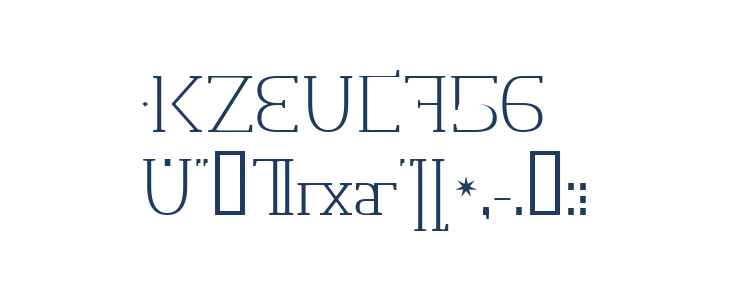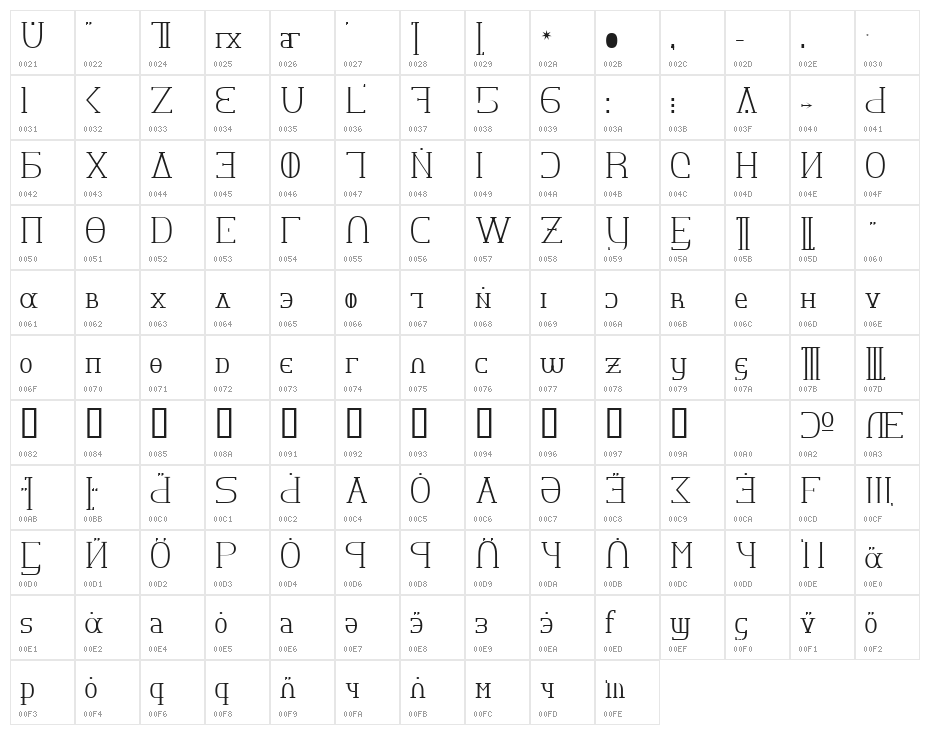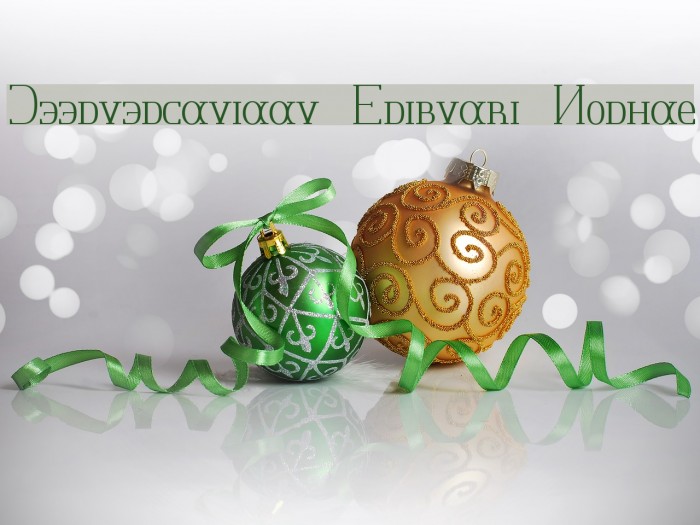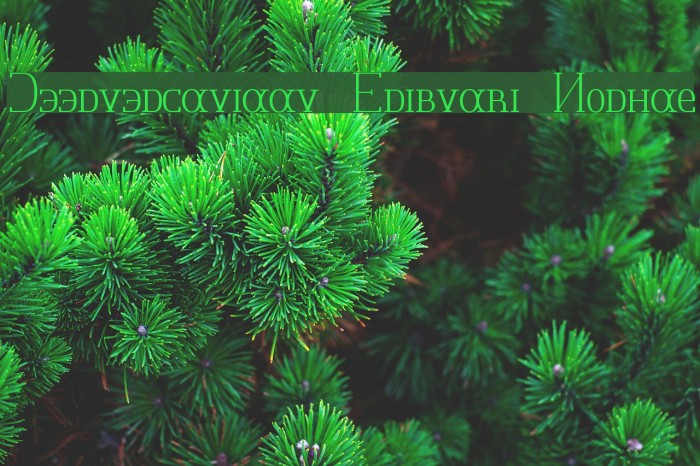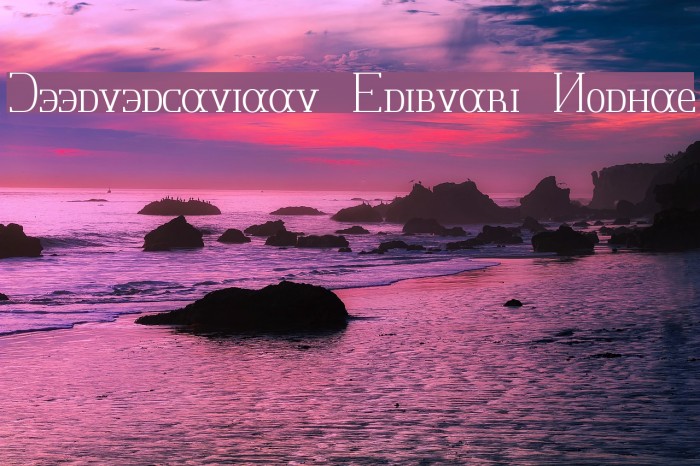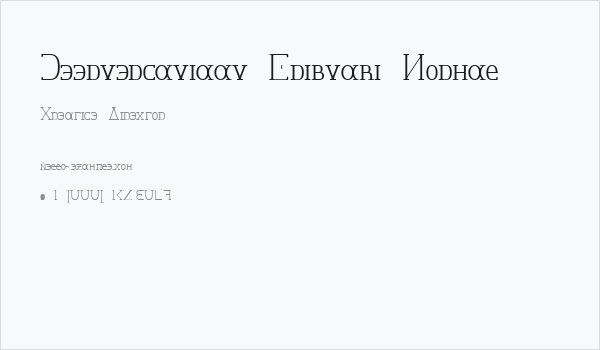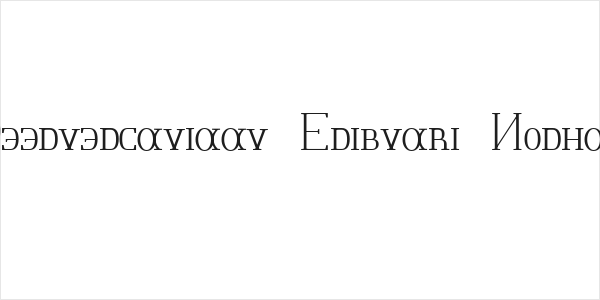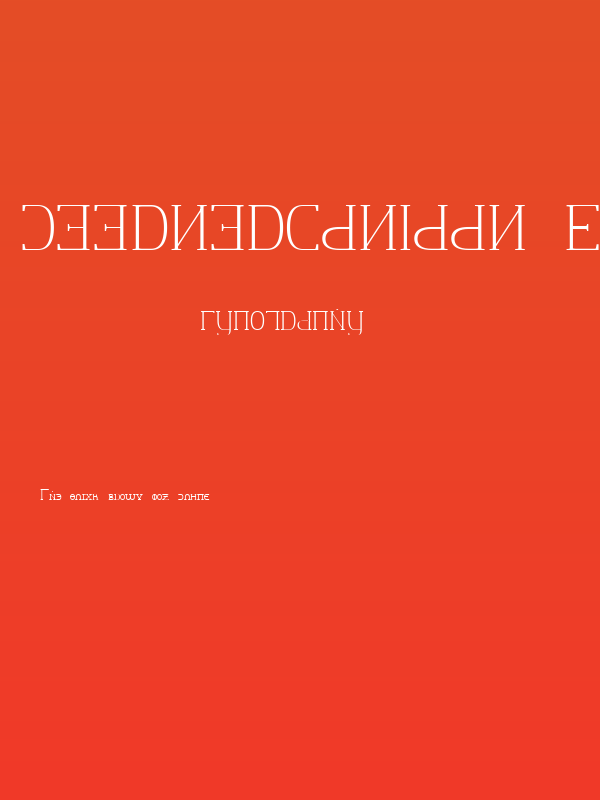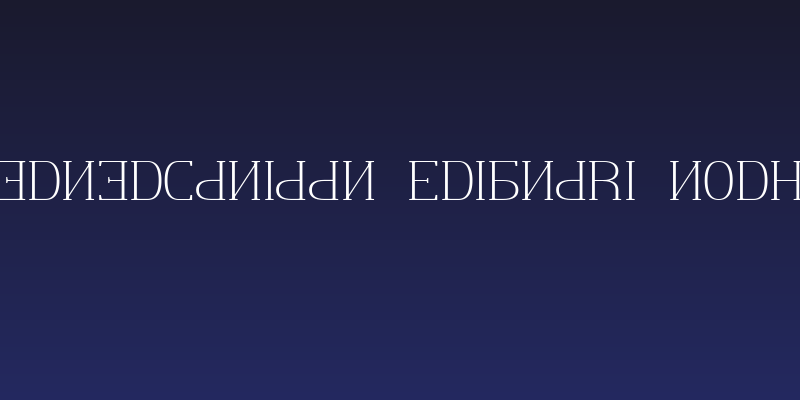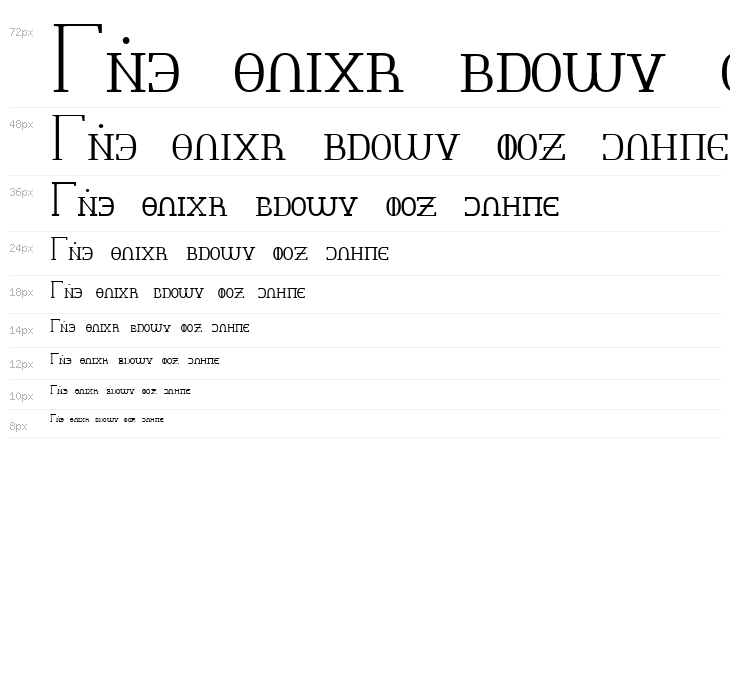
Jeernervaniaan Sribnaki Normal Font
Jeernervaniaan Sribnaki Normal Description
This font features a unique and artistic style, characterized by its geometric and angular letterforms. The uppercase letters have a distinct, almost futuristic appearance with sharp edges and clean lines. The lowercase letters maintain a similar aesthetic, providing a cohesive look throughout the typeface. Numbers and special characters are designed to match the overall geometric theme, offering a consistent visual experience. The font's design is both modern and decorative, making it suitable for creative projects that require a bold and distinctive typeface.
| Proposed Projects | Ideal for branding, posters, album covers, and any project requiring a modern, artistic touch. |